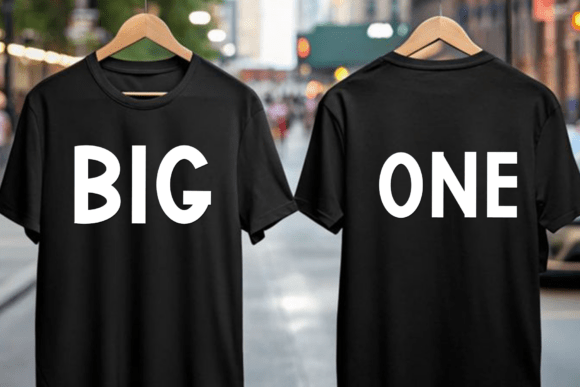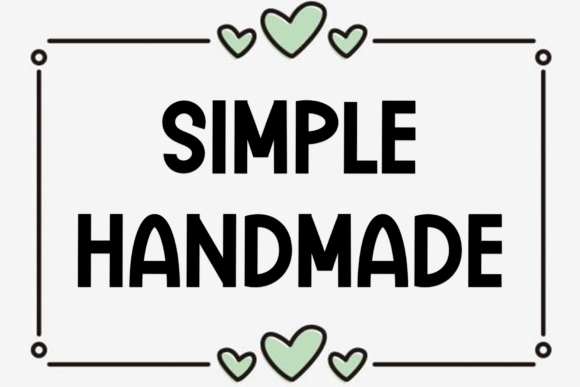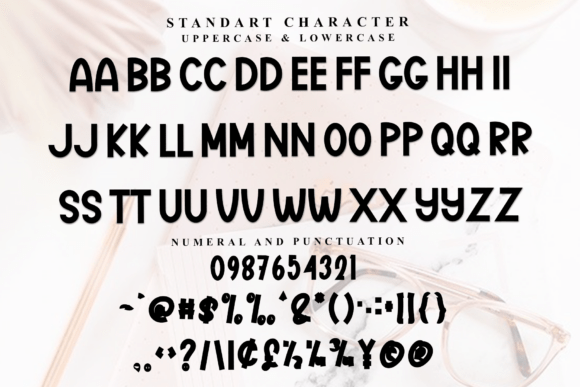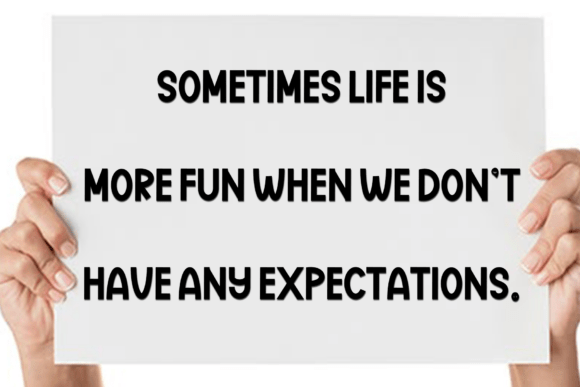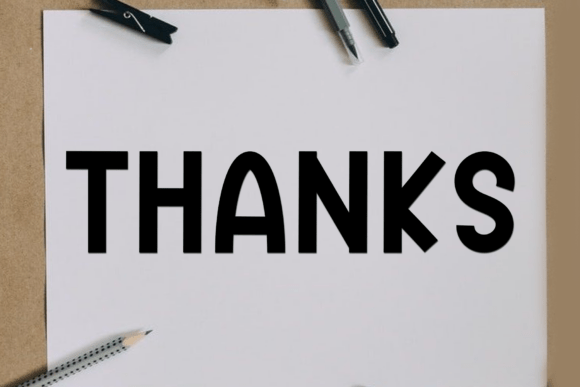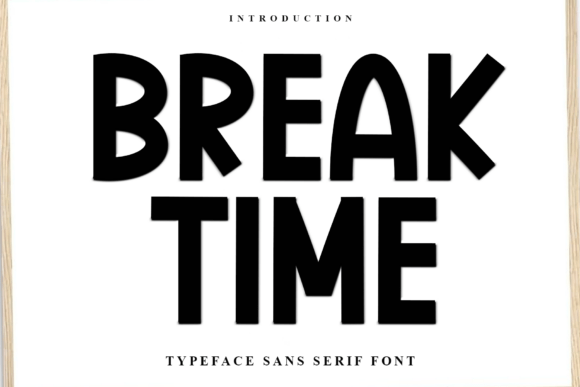
Introducing Break Time Font: The Ultimate Holiday Typeface
The holiday season is upon us, and what better way to get into the spirit than with a festive and merry typeface? Look no further than Break Time Font, a decorative and whimsical font that’s perfect for adding a touch of enchantment to your designs. In this article, we’ll dive into the world of Break Time Font and explore its features, benefits, and uses.
Break Time Font is a holiday-themed typeface that’s designed to capture the magic and wonder of the season. With its decorative elements and whimsical flair, this font is sure to add a cheerful and nostalgic ambiance to your words. Whether you’re designing greeting cards, gift tags, or holiday-themed projects, Break Time Font is the perfect choice.
Break Time Font is a versatile typeface that’s perfect for designers and crafters alike. Its unique and decorative style makes it ideal for a variety of projects, from holiday-themed crafts to commercial designs. With Break Time Font, you can create stunning and eye-catching designs that are sure to impress.
So, what makes Break Time Font so special? Here are just a few of its key features and benefits:
- Festive and merry design: Break Time Font is designed to capture the spirit of the holiday season, with a festive and merry design that’s sure to put a smile on your face.
- Decorative elements: The font features decorative elements and whimsical flair, making it perfect for adding a touch of enchantment to your designs.
- Perfect for holiday-themed projects: Break Time Font is perfect for holiday-themed projects, including greeting cards, gift tags, and more.
- Versatile and easy to use: The font is versatile and easy to use, making it perfect for designers and crafters of all skill levels.
Using Break Time Font in Your Designs
So, how can you use Break Time Font in your designs? Here are a few ideas to get you started:
- Greeting cards: Use Break Time Font to create stunning and festive greeting cards for the holiday season.
- Gift tags: Add a touch of enchantment to your gift tags with Break Time Font, perfect for holiday gifts and presents.
- Holiday-themed projects: Use Break Time Font in holiday-themed projects, such as Christmas decorations, Halloween signs, and more.
- Commercial designs: Break Time Font is perfect for commercial designs, including holiday-themed advertisements, packaging, and more.
In conclusion, Break Time Font is a festive and merry typeface that’s perfect for adding a touch of enchantment to your designs. With its decorative elements and whimsical flair, this font is sure to capture the spirit of the holiday season. Whether you’re a designer or crafter, Break Time Font is a versatile and easy-to-use typeface that’s perfect for a variety of projects. So why wait? Download Break Time Font today and let your typography shine with the magic of Beautiful Font!
- What is Break Time Font?: Break Time Font is a festive and merry typeface designed to capture the spirit of the holiday season.
- What can I use Break Time Font for?: Break Time Font is perfect for holiday-themed projects, including greeting cards, gift tags, and more.